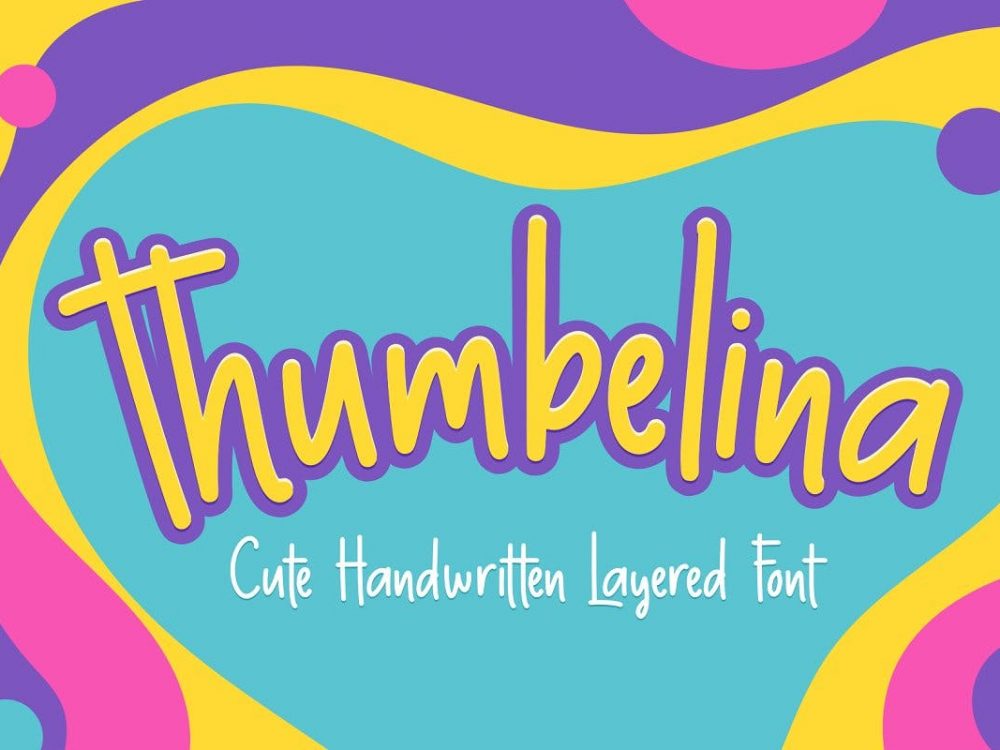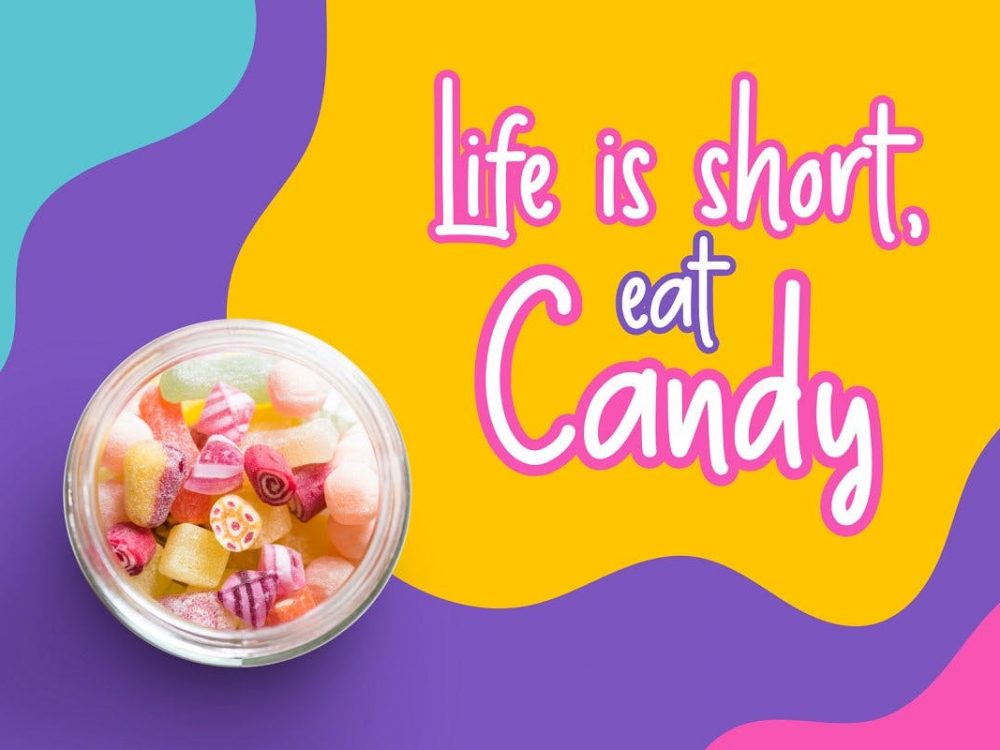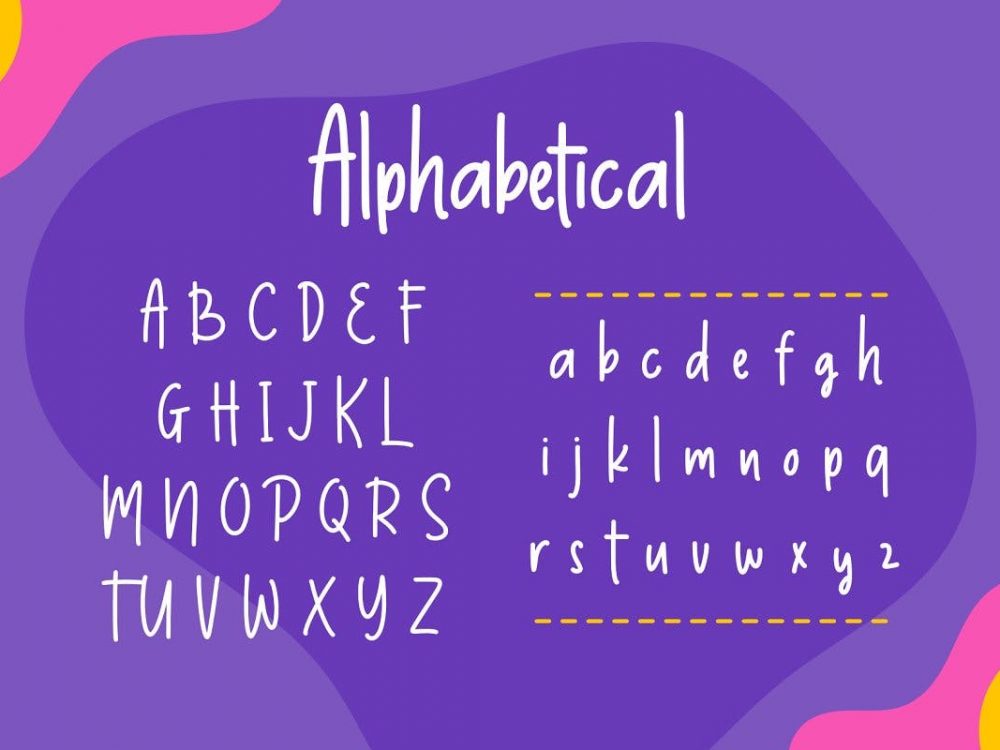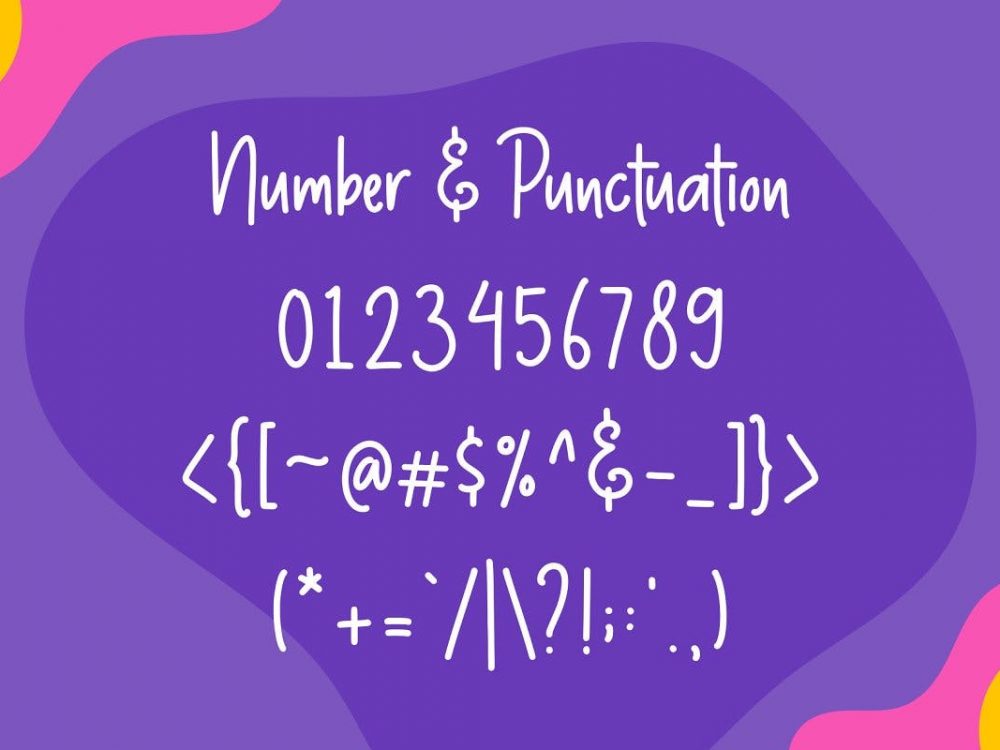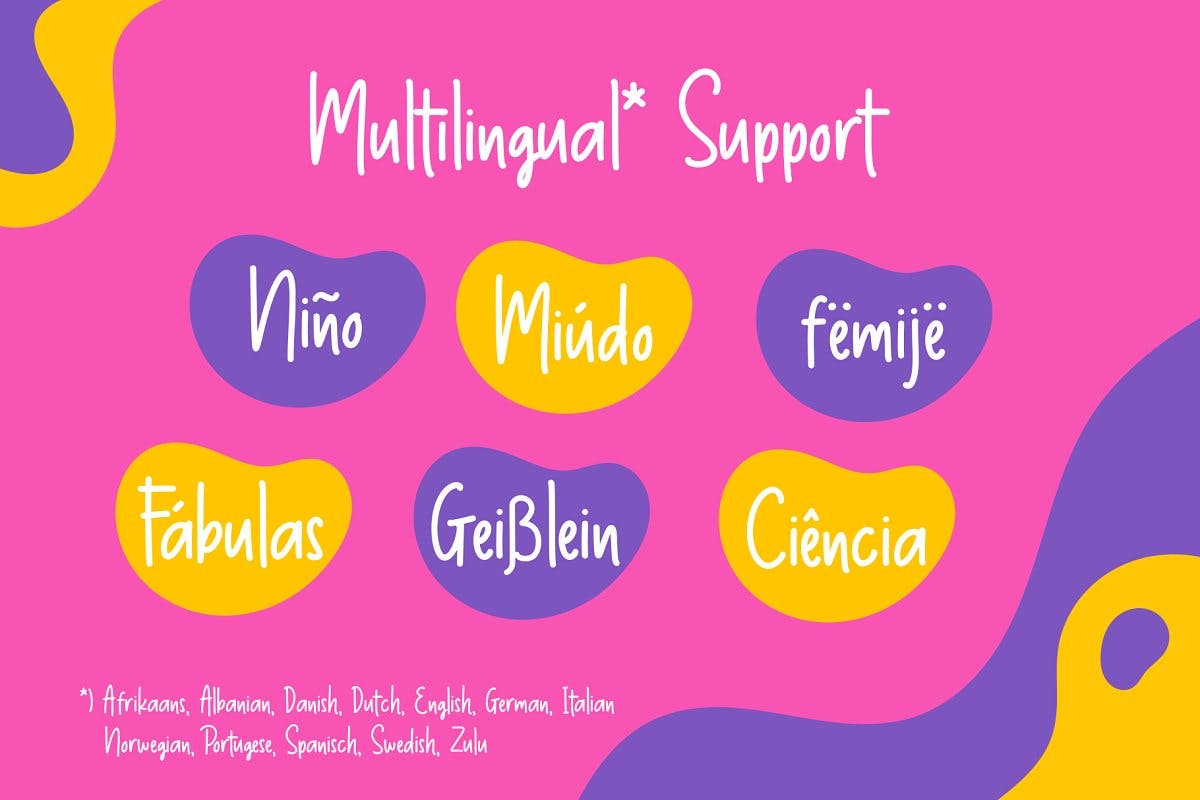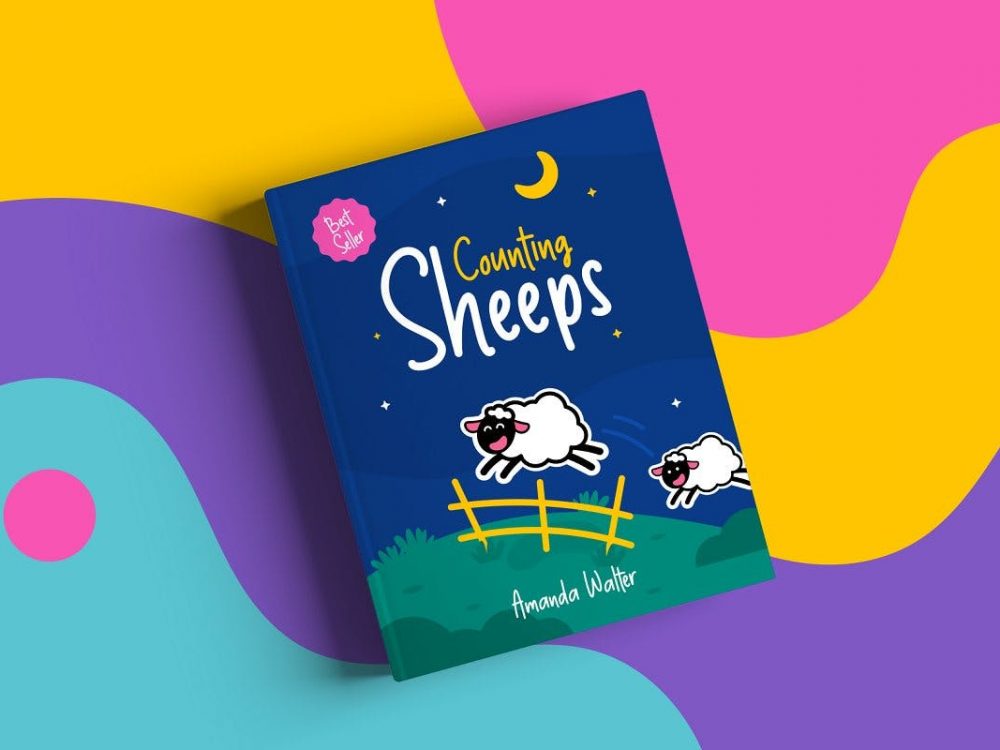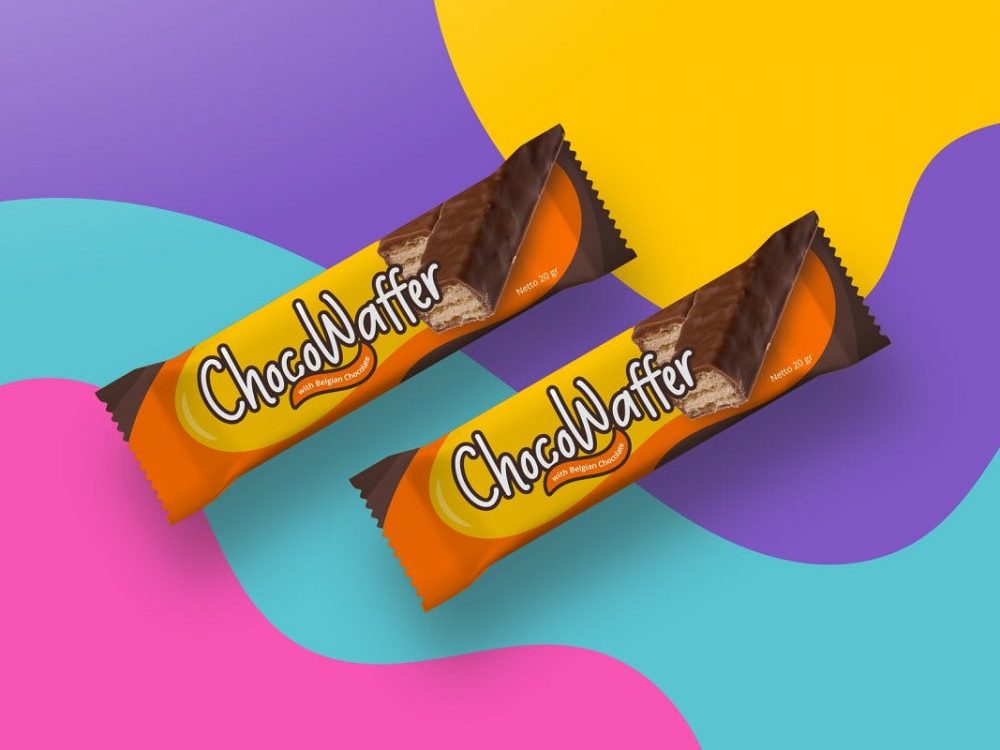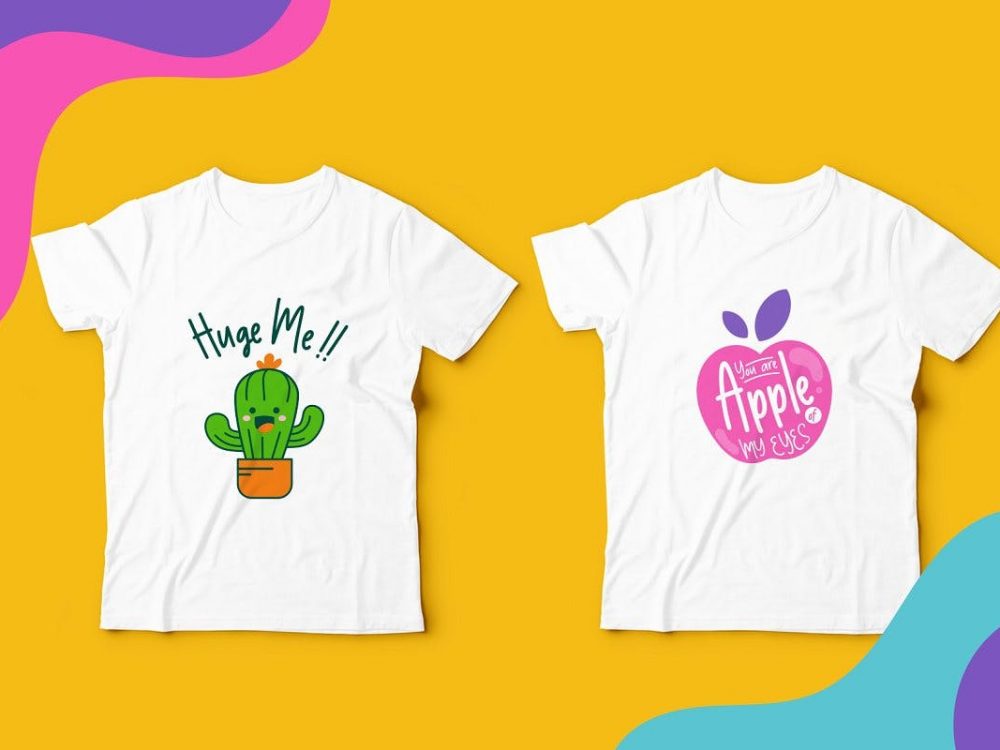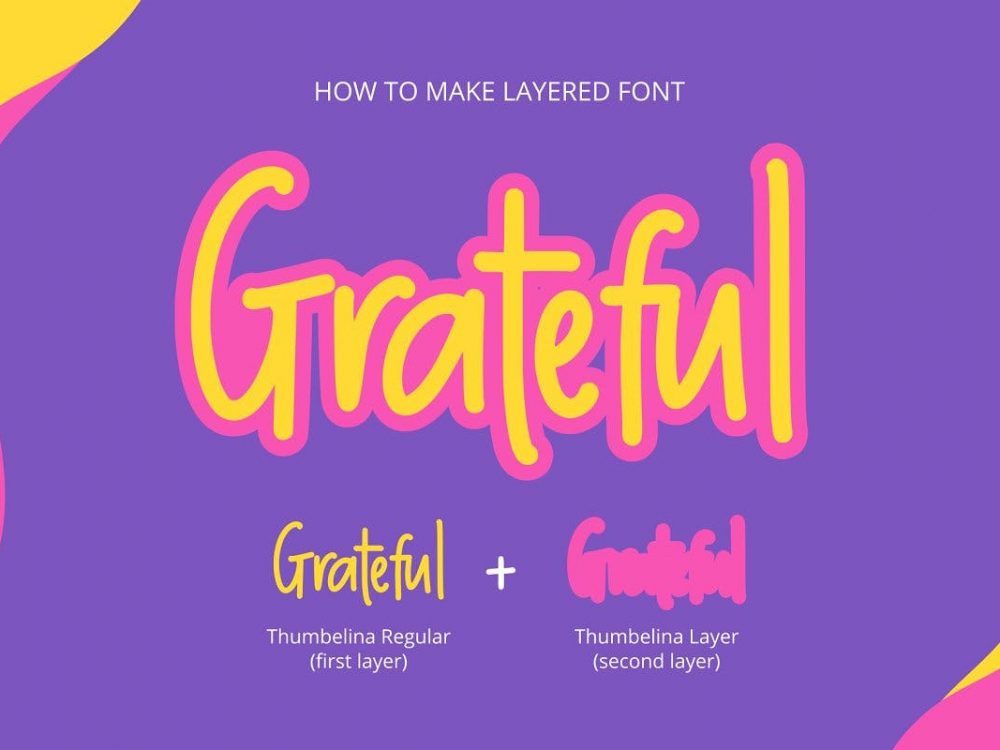
Thumbelina Free Handwritten Font
Thumbelina Free Handwritten Font is an interesting modern handwritten layered font that will work very well for a variety of design projects such as posters, invitations, postcards, branding, flyers, prints, and more. Raise your professional level and create memorable designs using this font. If you want more features for this font you can check the premium version itself.
Author: LetterStuff Typefoundry